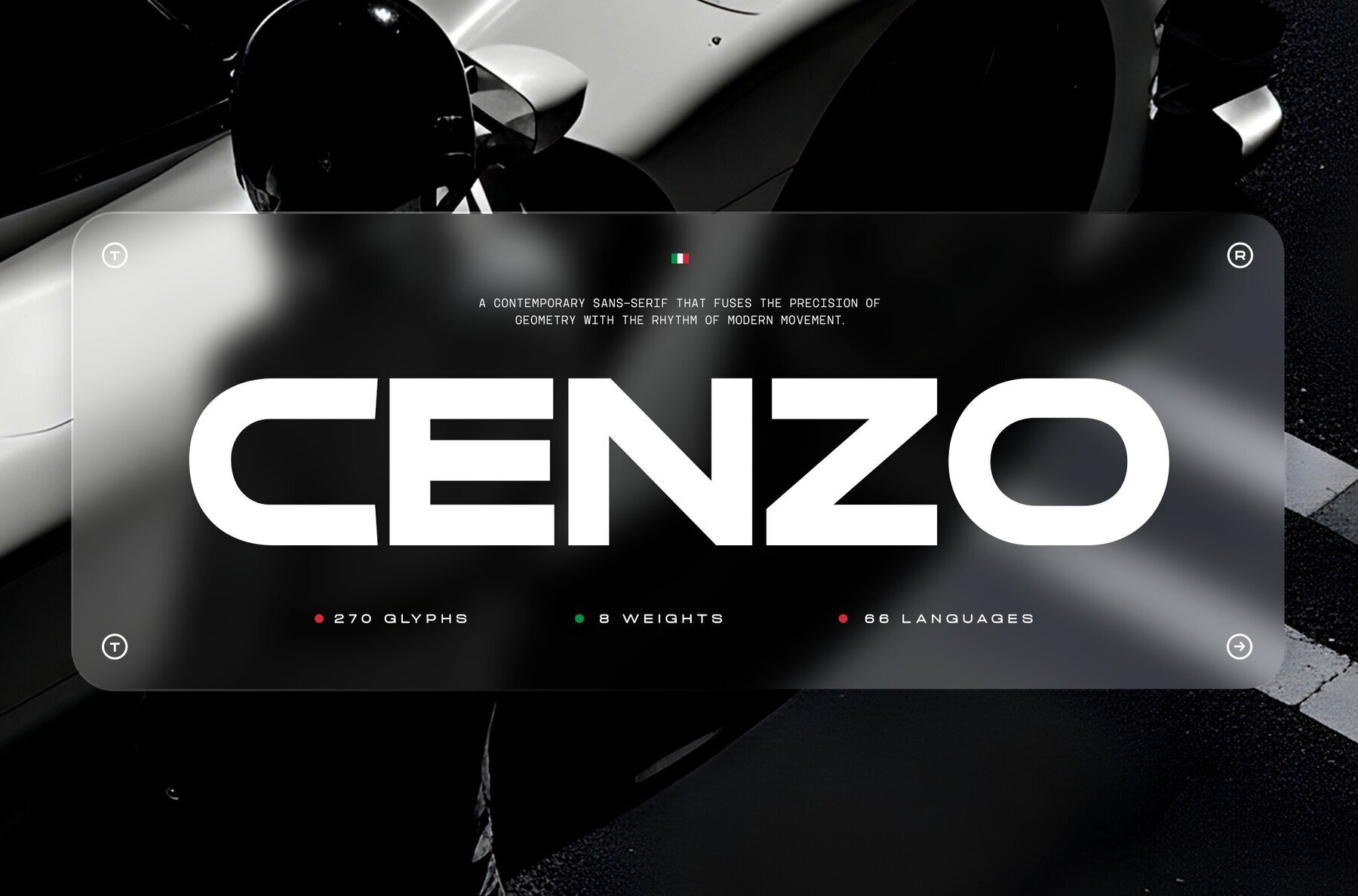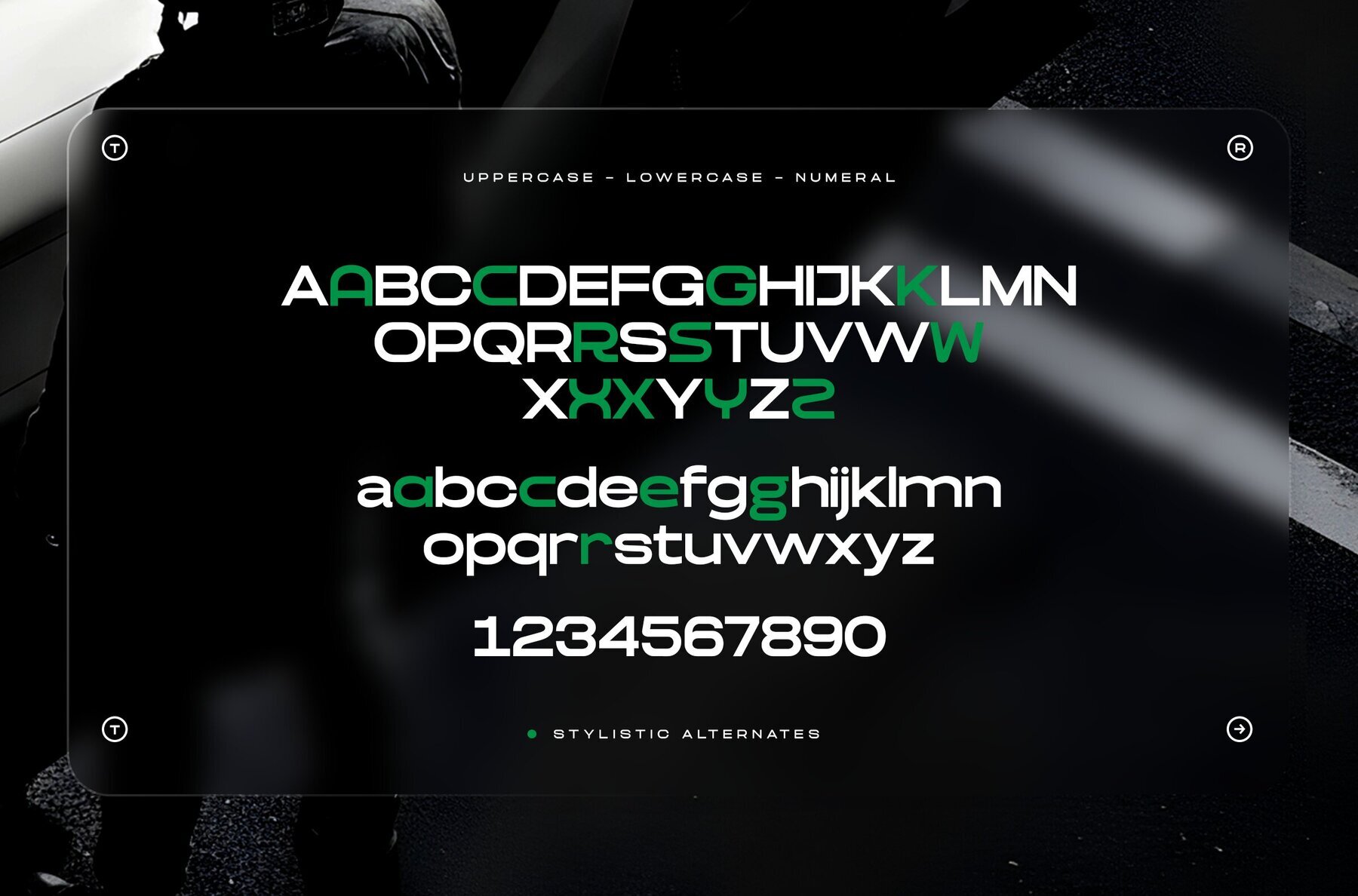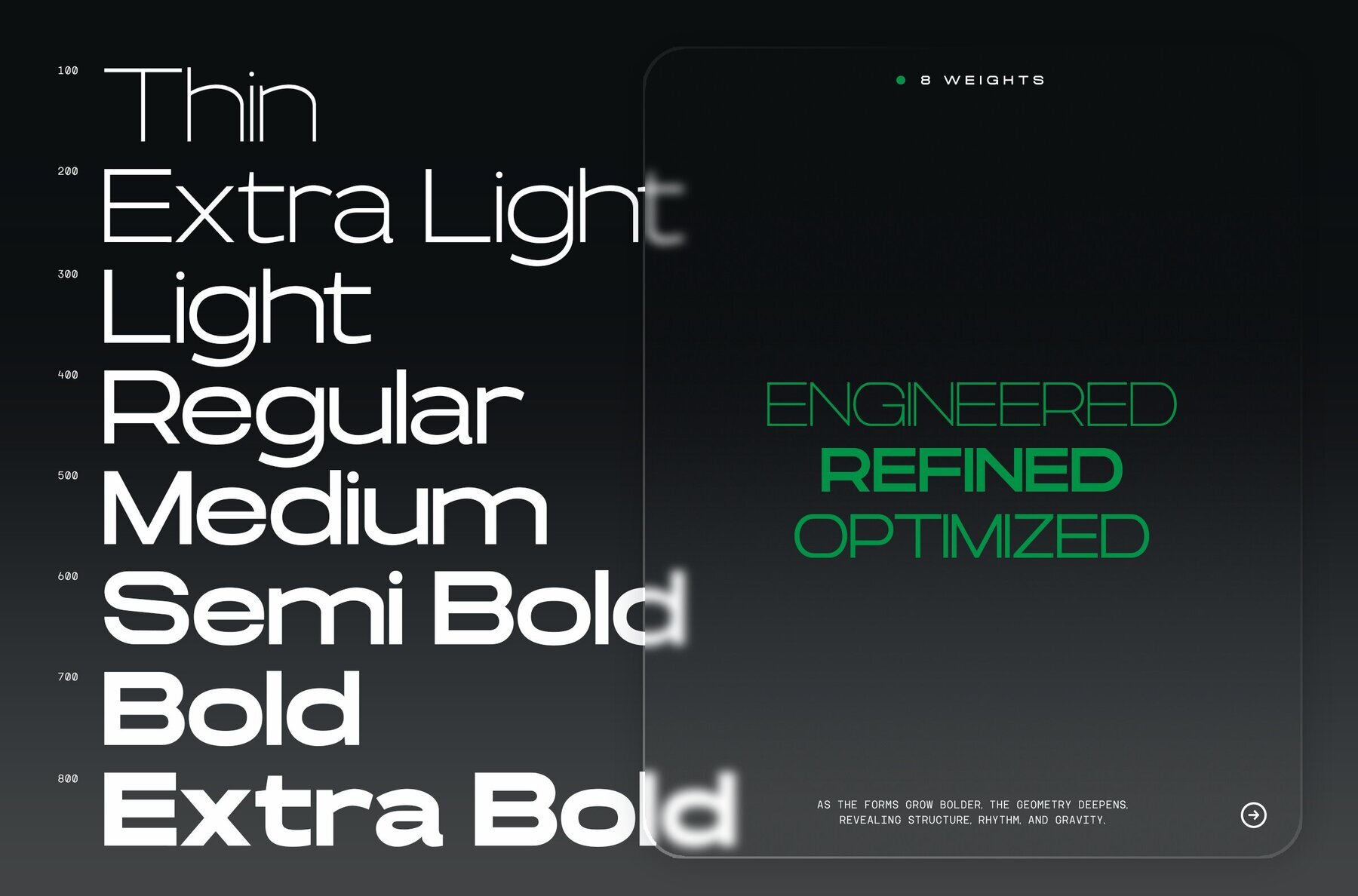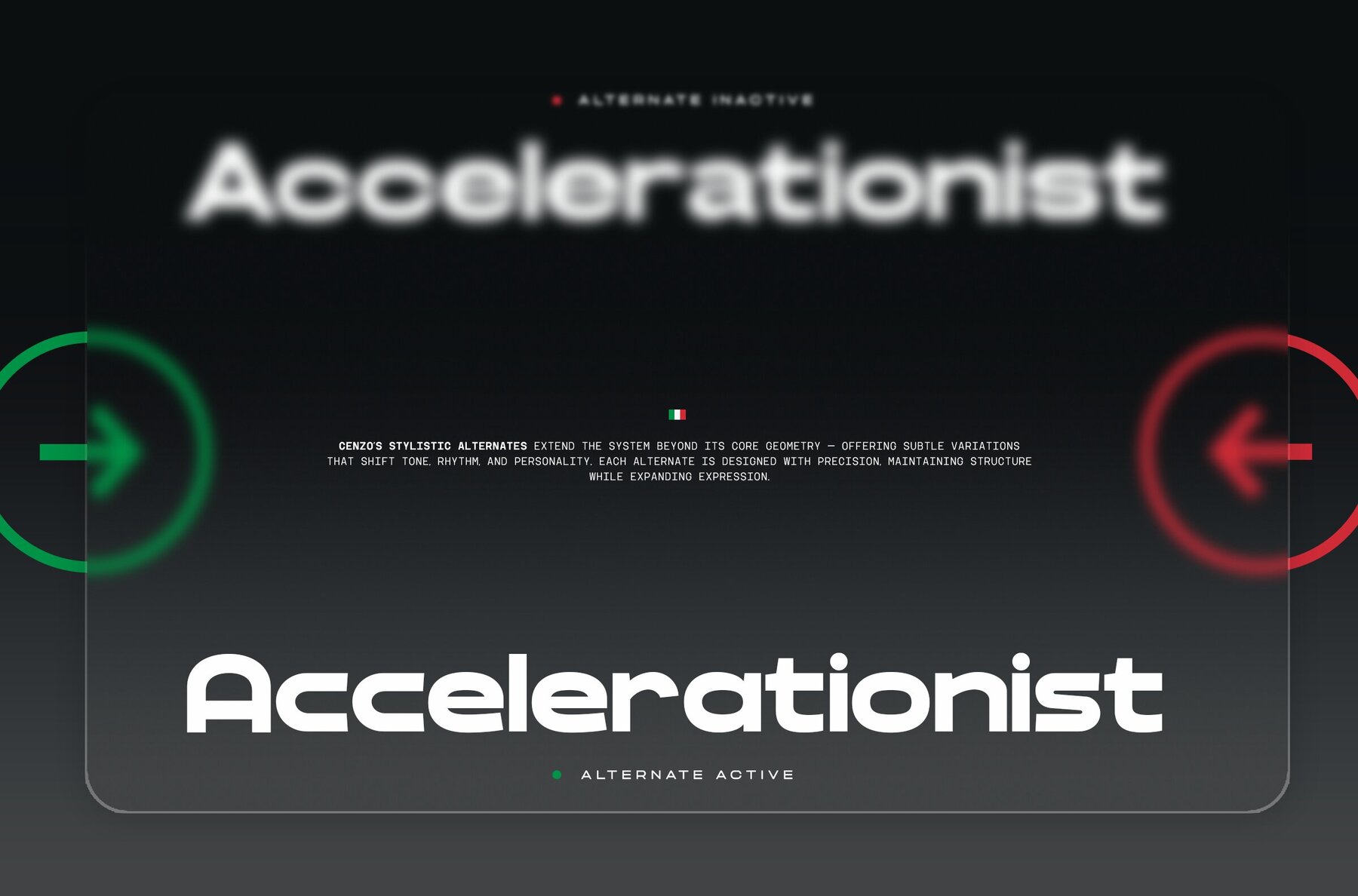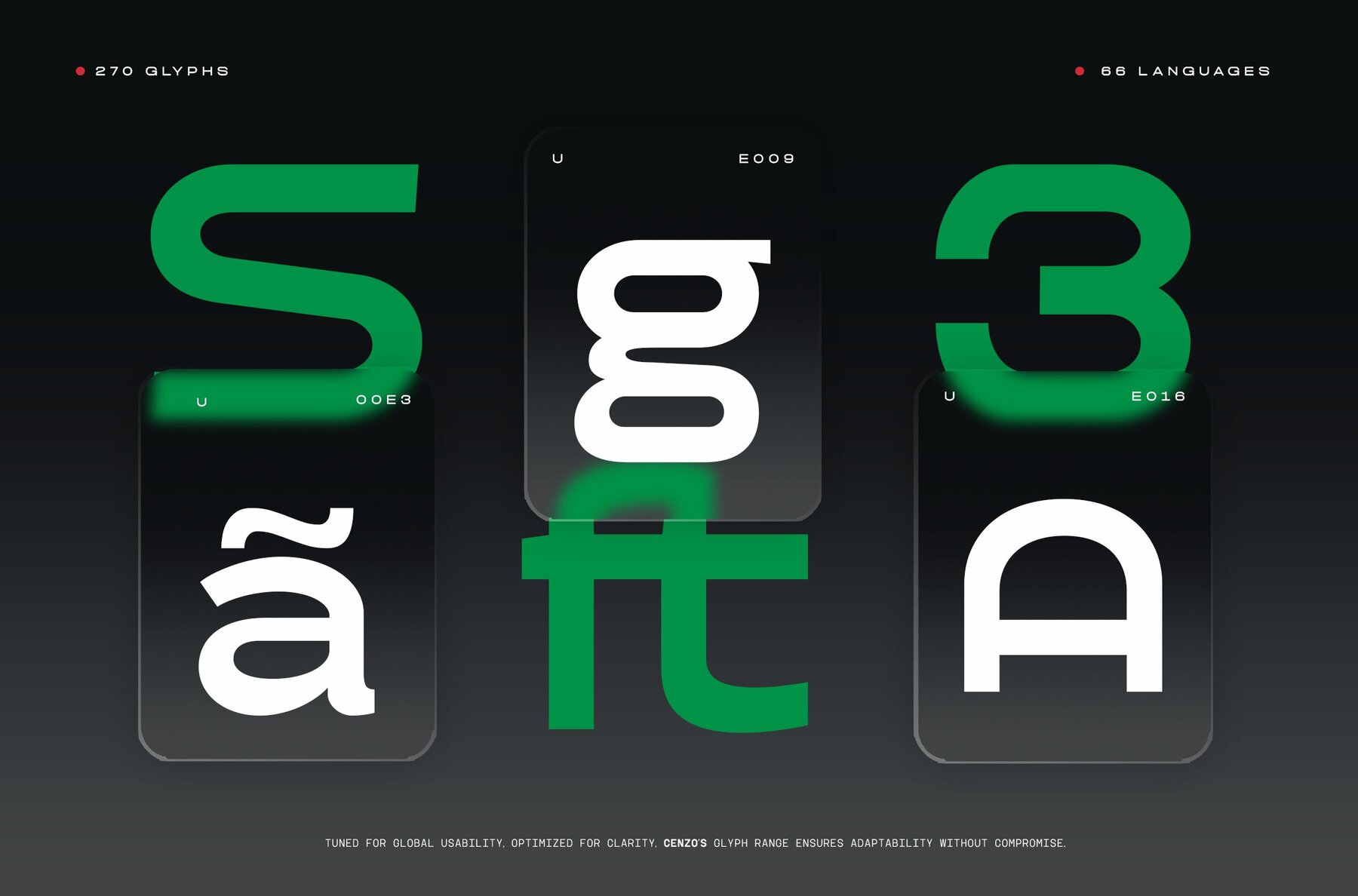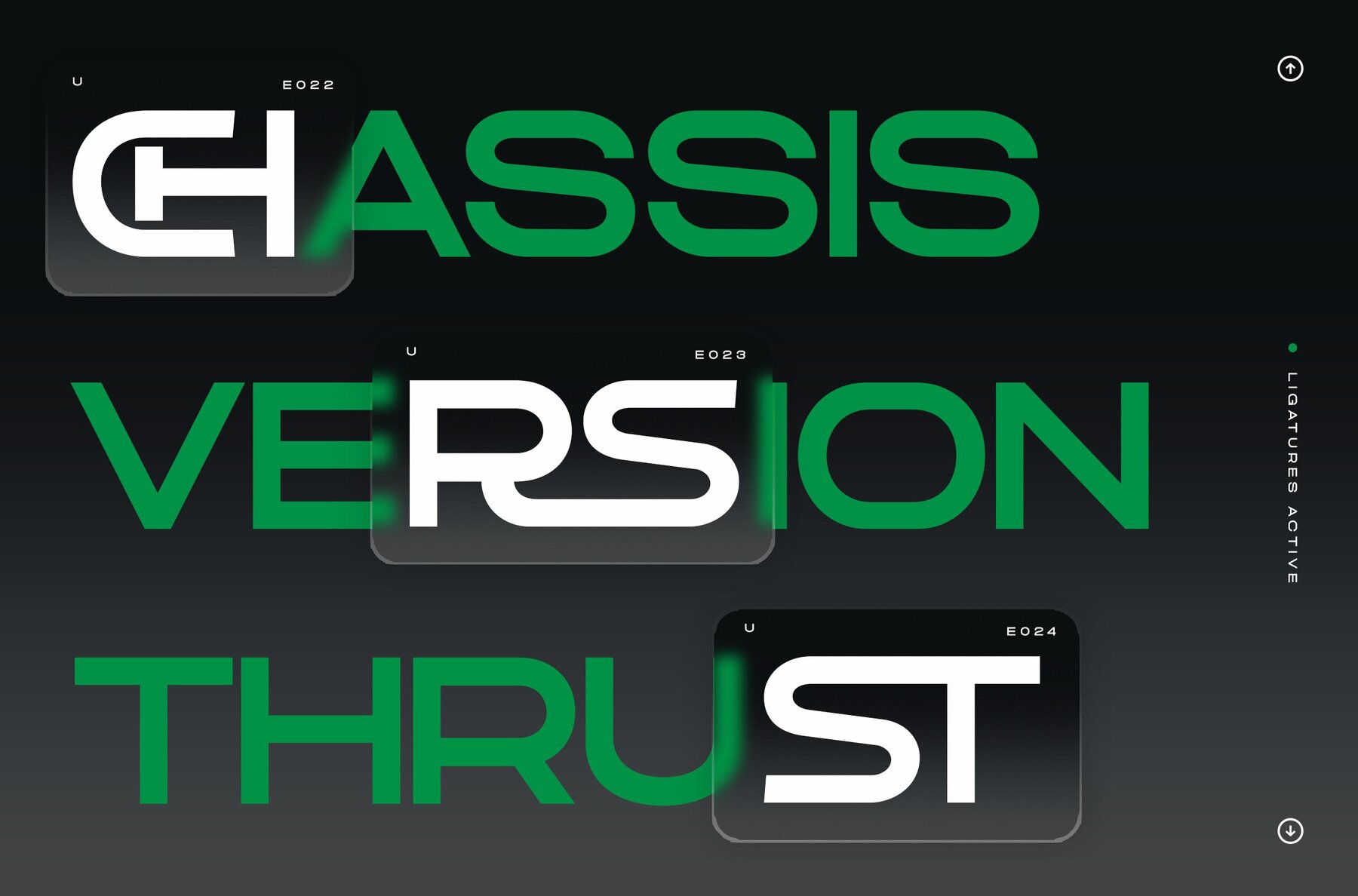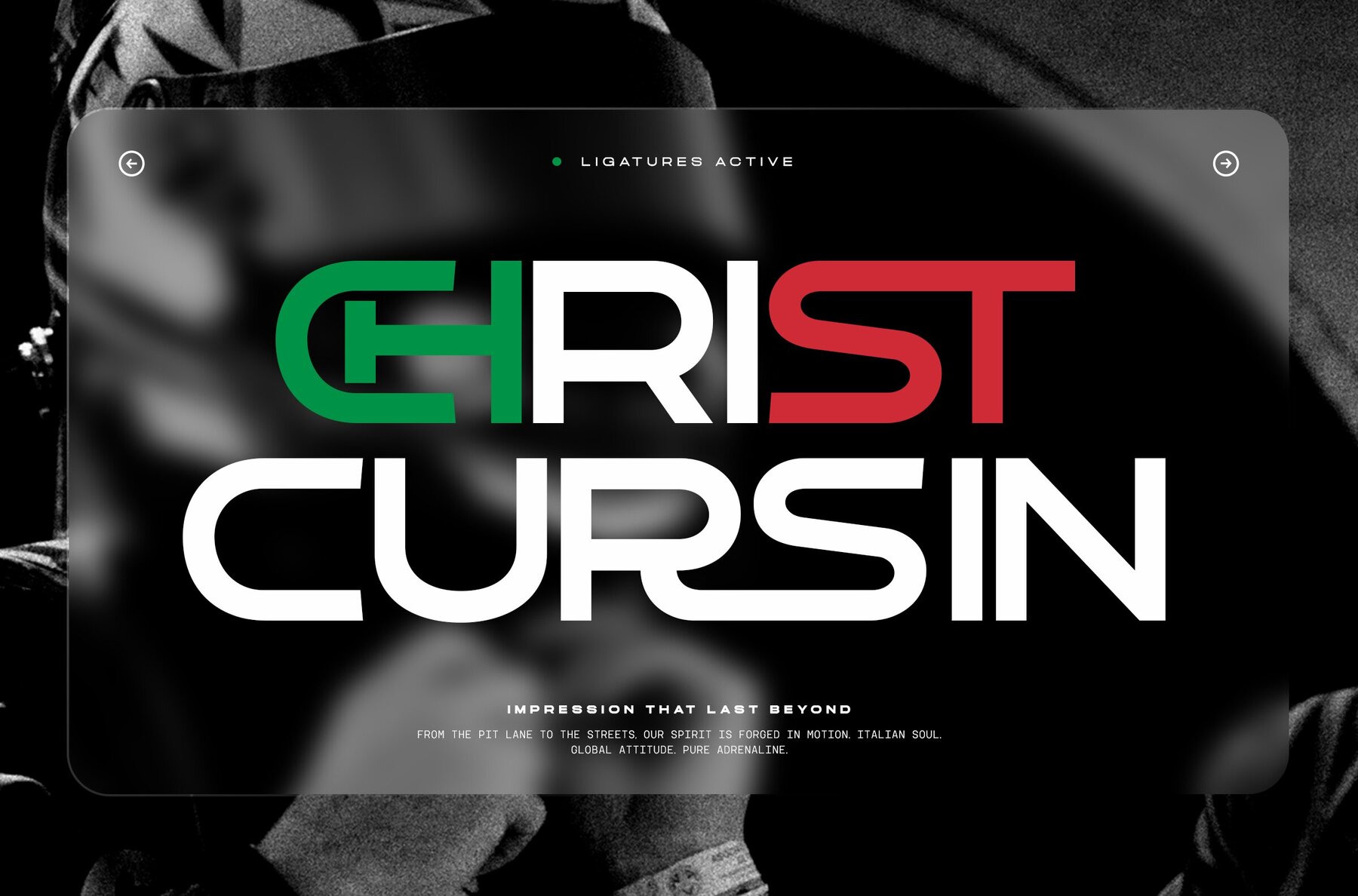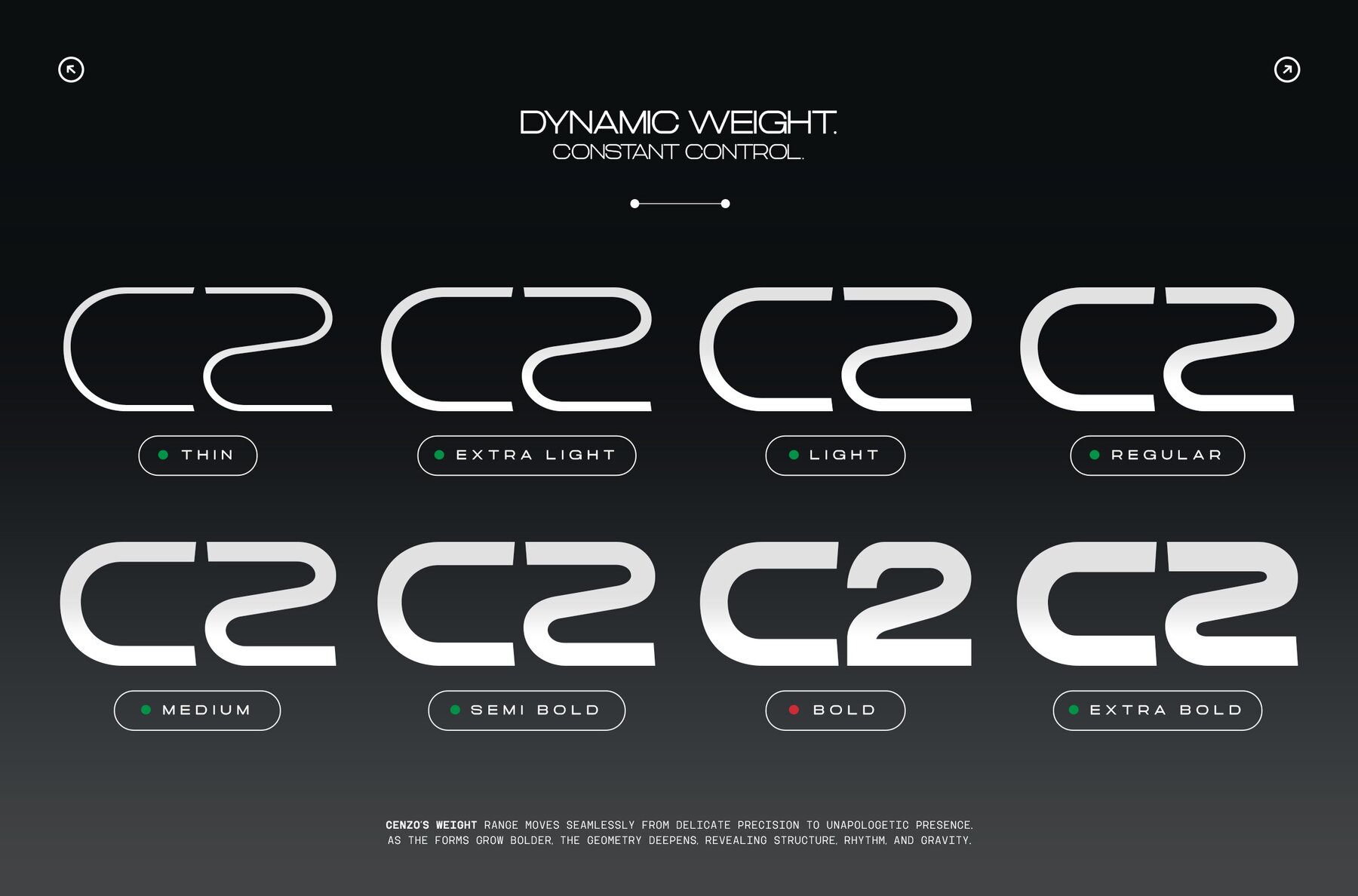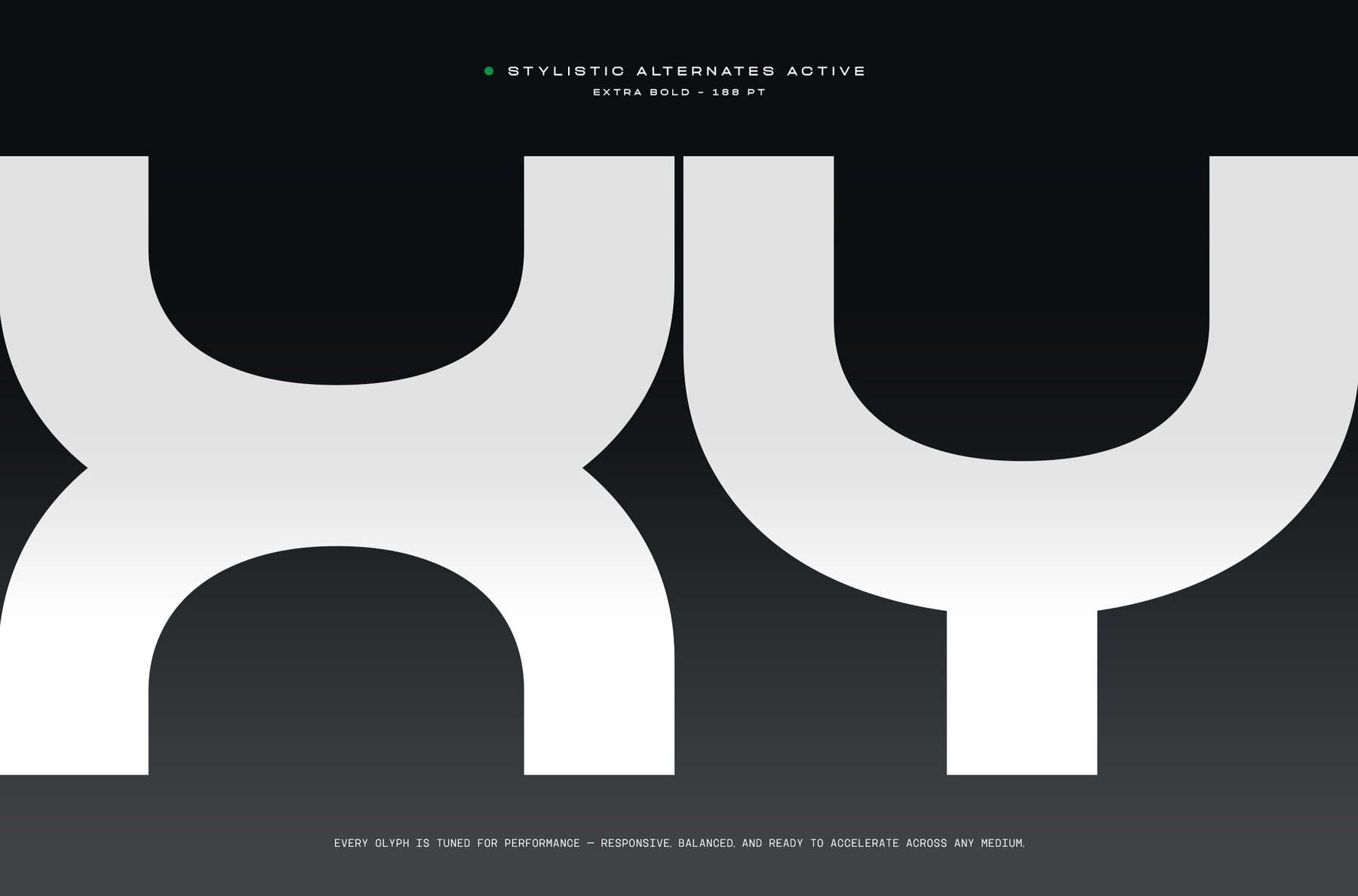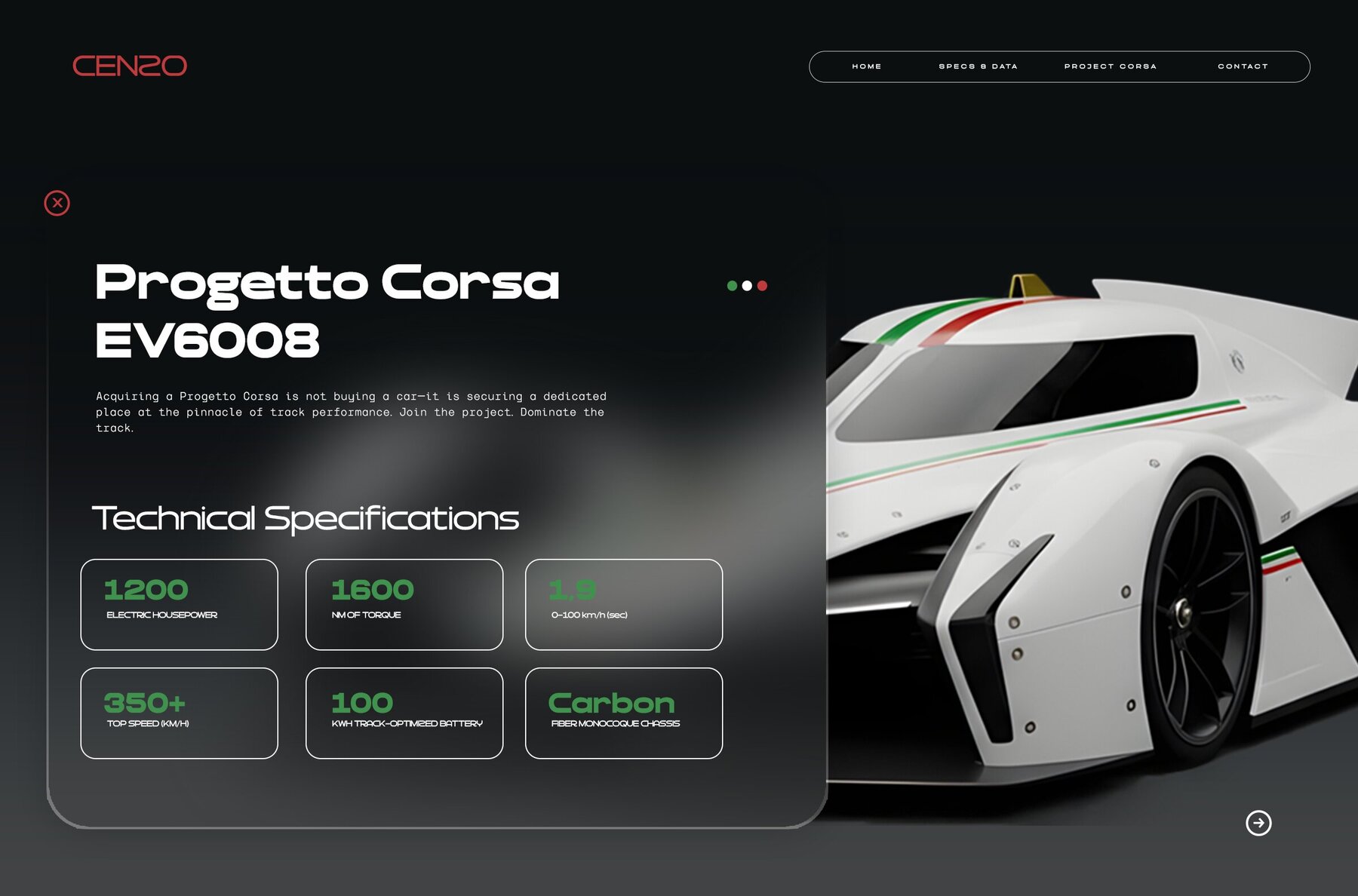
TRT CENZO Font
TRT CENZO stands as a modern sans serif font defined by clean geometry, sharp details, and a distinct sense of clarity. Its design draws inspiration from the powerful forms of modernist typefaces, reimagined for an audience seeking both clarity and bold visual presence. The blend of sturdy letterforms with refined, subtle cuts imparts a sleek, forward-looking aesthetic that fits seamlessly into today's diverse visual languages. Balanced proportions ensure TRT CENZO remains highly readable across branding, interface design, editorial layouts, and display applications. The inclusion of alternate characters and standard ligatures offers flexibility and encourages unique typographic solutions, giving designers the freedom to tailor each project. Minimalist yet visually assertive, TRT CENZO is suited for those who require modern typography that commands attention without sacrificing integrity.TRT CENZO: Contemporary Sans Serif With Geometric Precision